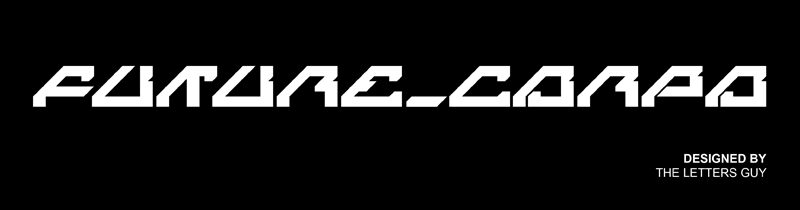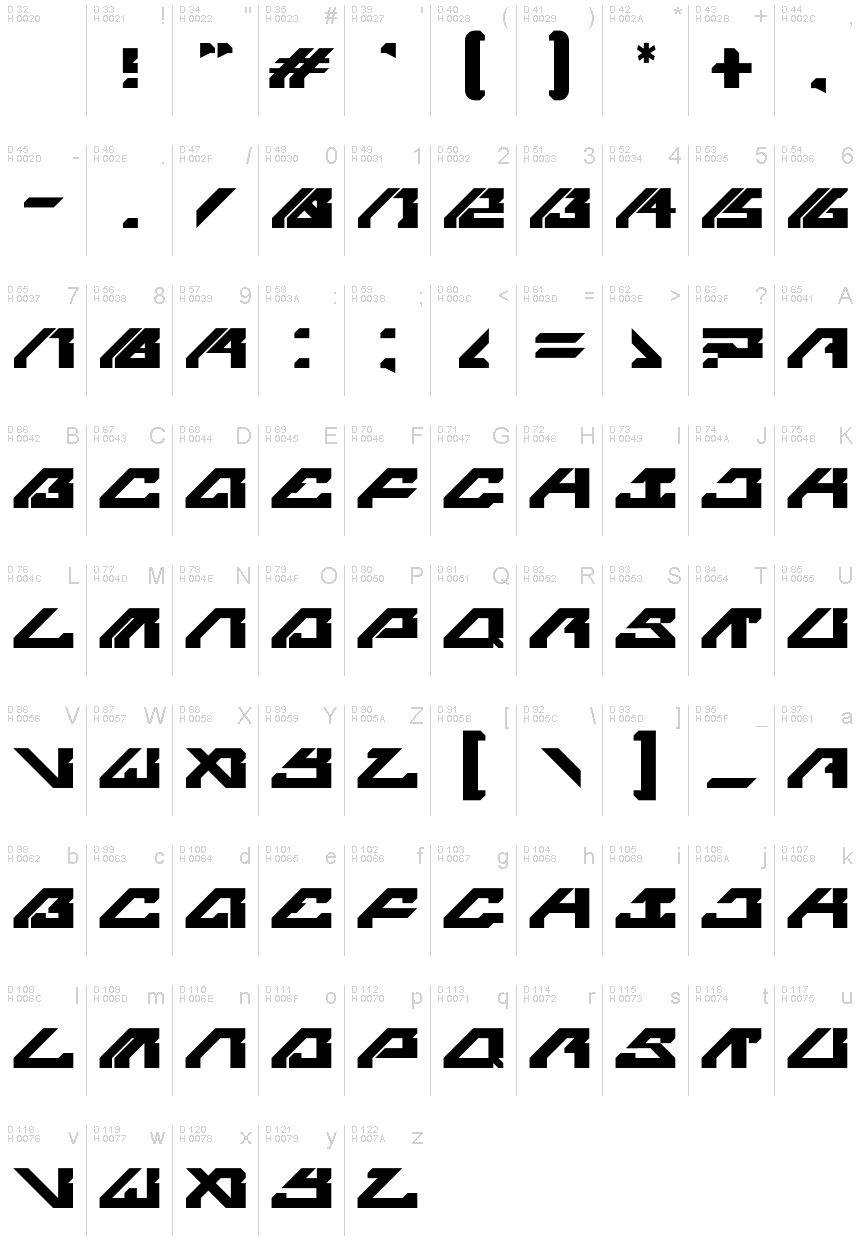
Future Corpo Bold
Meet Future Corpo Bold - the perfect display font for futuristic projects that demand attention. Designed by The Letters Guy, this extra-expanded typeface exudes confidence and modernity. Its bold weight commands attention while its sleek lines and curves make it a dynamic addition to any design. Use Future Corpo Bold on branding materials, product packaging, or even in titles for science fiction films. This font's versatility makes it suitable for a range of projects, whether you're designing for tech startups or intergalactic adventures. Embrace the future with Future Corpo Bold.